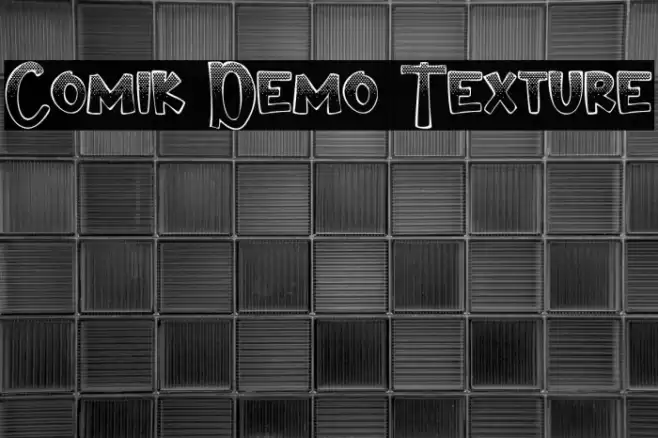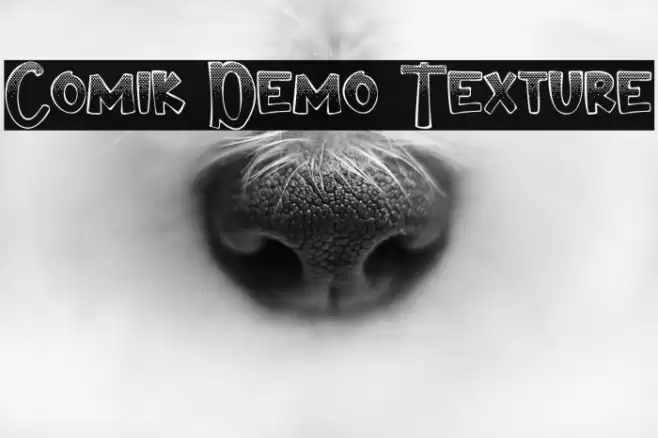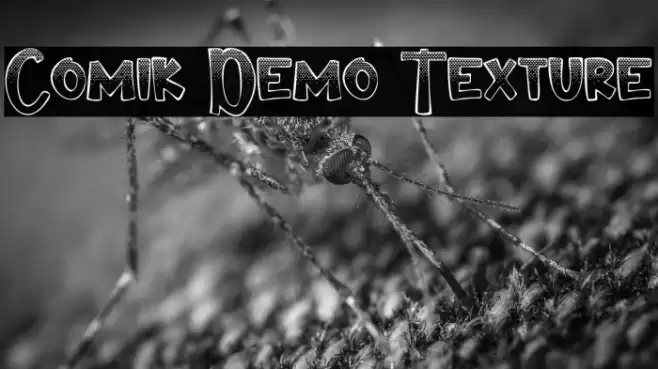
Comik Demo Texture Font
Comik Demo Texture Description
This playful and bold font features a textured, comic-inspired design that adds a sense of fun and creativity. The letters are characterized by thick, rounded strokes with a dotted texture that gives them a unique, hand-drawn appearance. The uppercase letters are prominent and eye-catching, making them ideal for attention-grabbing headlines or titles. The font's whimsical style is reminiscent of classic comic book lettering, with a modern twist that includes a textured overlay. This font is perfect for projects that require a lively and informal touch, such as children's books, comic strips, or playful branding.
A bold, textured comic-inspired font with a playful, hand-drawn style from Cartoon fonts.
- Font: Comik Demo Texture
- Proposed Projects: Ideal for comic books, children's literature, playful branding, and creative posters.
- Overall Style: Playful, Comic, Textured